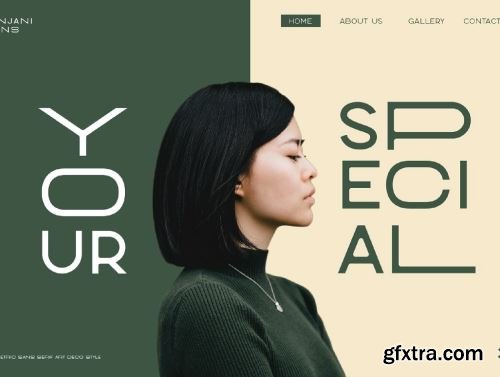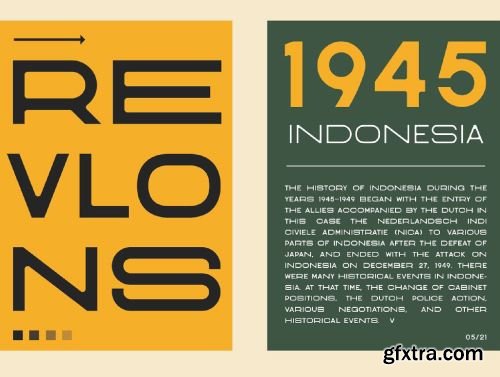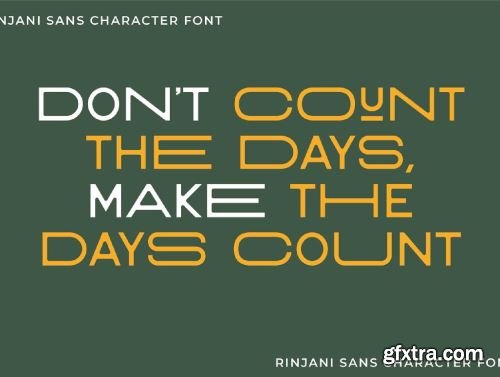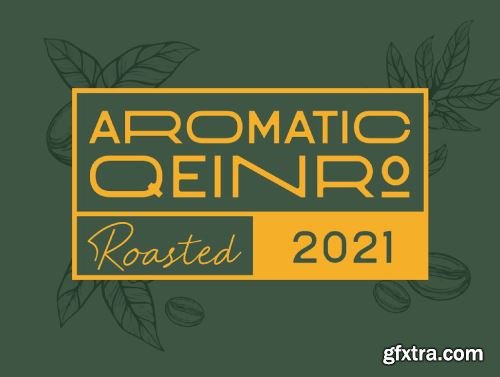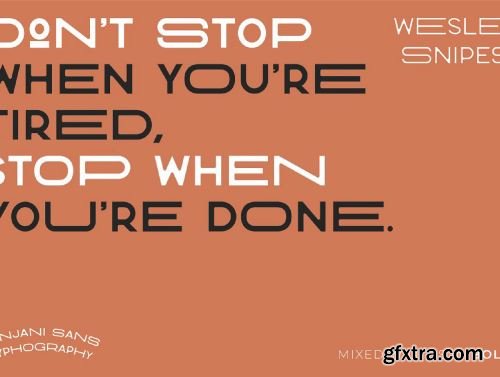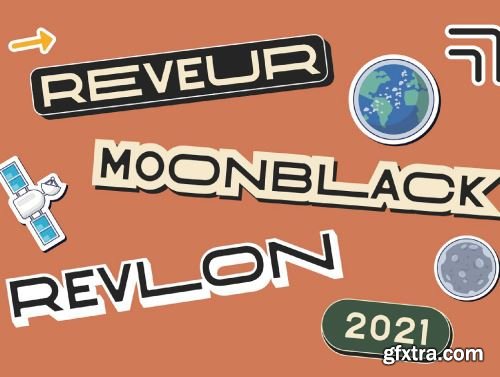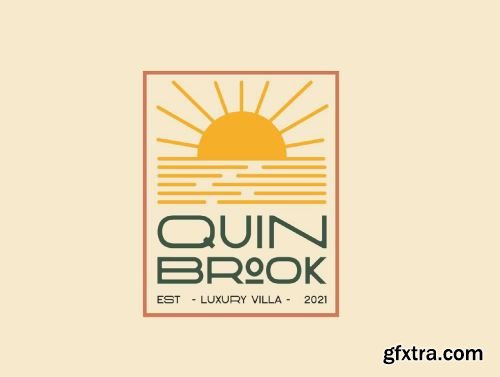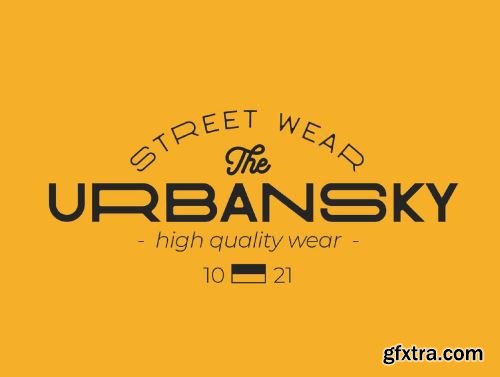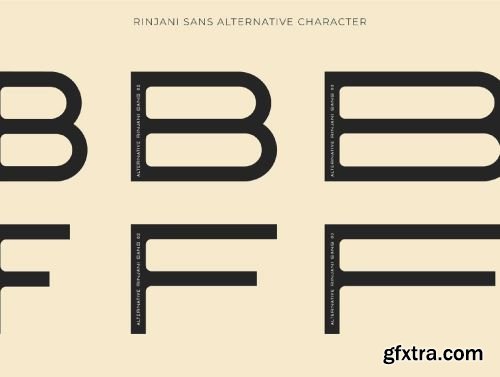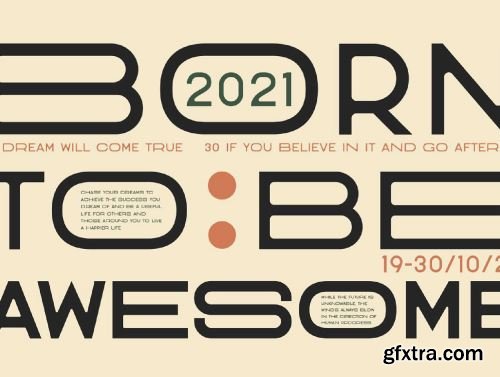
Rinjani Sans - Wide Stretch Typeface Ui8.net
Rinjani sans is a all-caps sans serif with Wide Stretch contemporary typographic, vintage futuristic art-deco touch Streamline influence of the 1930s and 1940s.